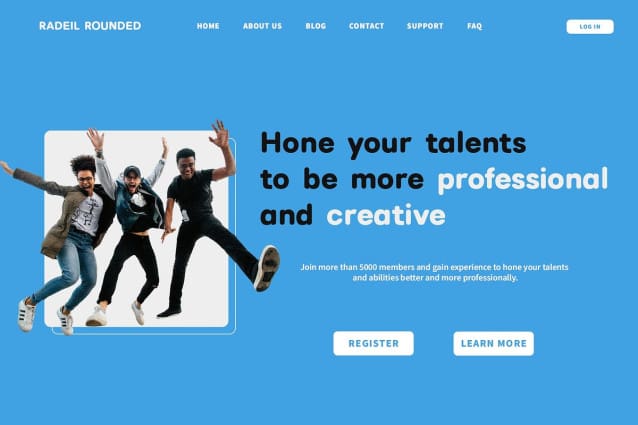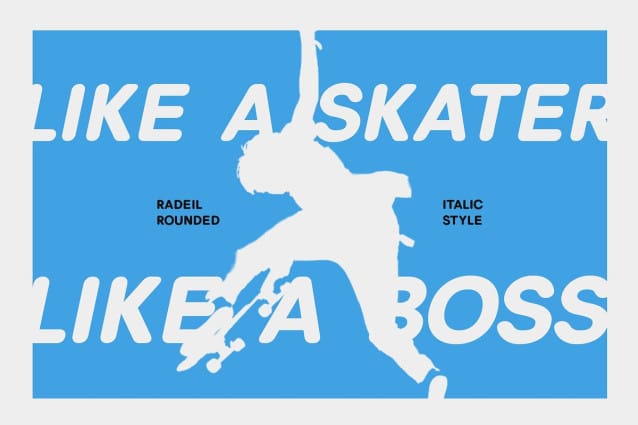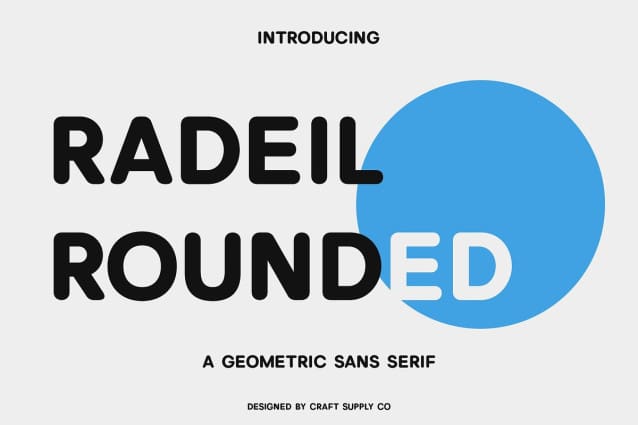
Radeil Rounded Font
Radeil Rounded Font: The Friendly Sans Serif. Soft and Approachable Radeil Rounded embodies a soft and approachable demeanor with its low-contrast sans serif rounded design. Its gentle curves and friendly appearance invite readers to engage with content effortlessly.
Versatile Usage Designed for versatility, This font adapts seamlessly to a wide range of design applications. Whether used for branding, UI/UX design, or editorial projects, its friendly vibe adds warmth and accessibility.
Low Contrast, High Impact With its low-contrast letterforms, This font maintains legibility while exuding a subtle charm. Each character is crafted to offer clarity and readability across various text sizes and platforms.
Endearing Softness The softness of This font design creates an endearing visual appeal, making it an ideal choice for projects that require a welcoming and approachable aesthetic. Its rounded edges and gentle curves evoke a sense of comfort and friendliness.
Friendly Typeface This font stands out as a versatile and approachable sans serif font. Its low-contrast rounded style, coupled with a friendly vibe, makes it a perfect choice for projects seeking to create a warm and inviting atmosphere. Experience the charm of Radeil Rounded in your designs today.